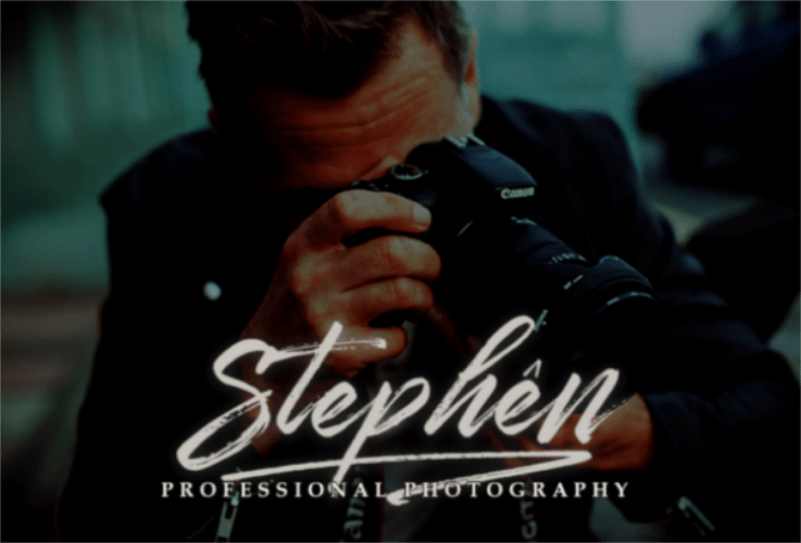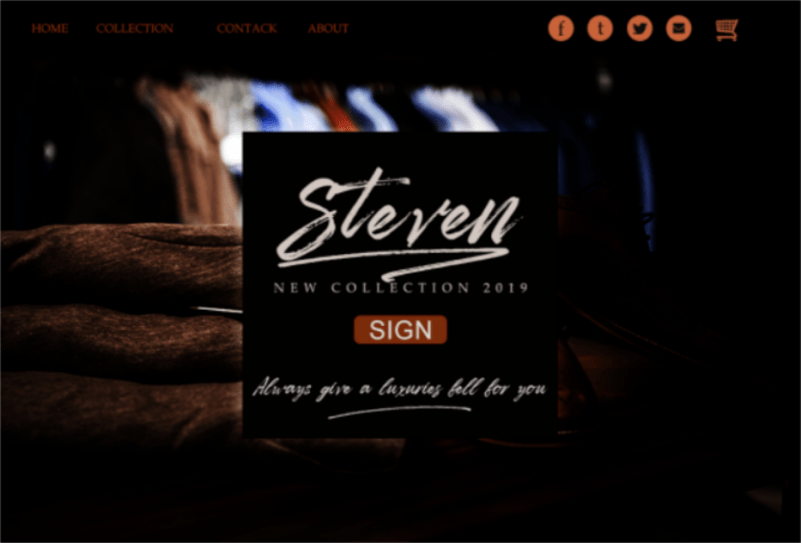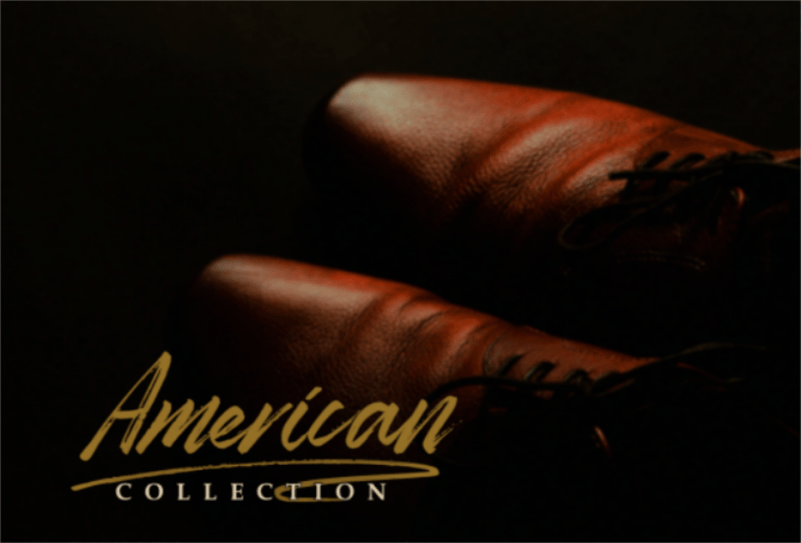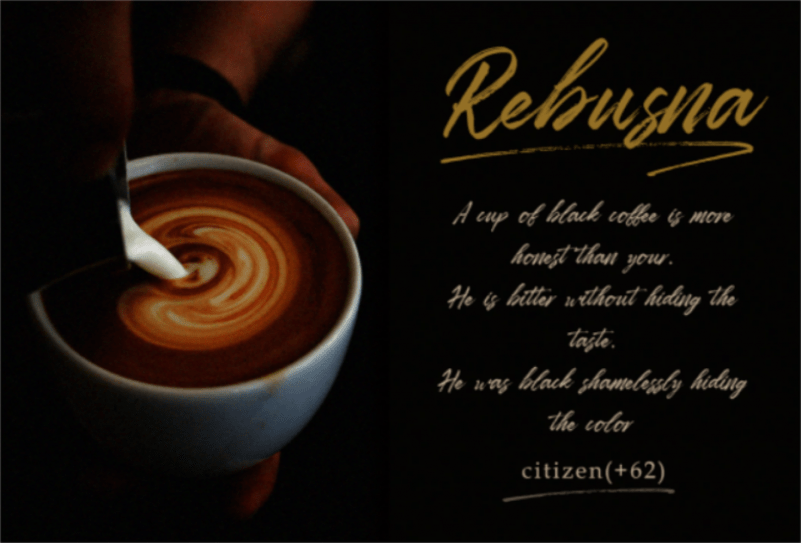
Zombies Hand Brush font
Introducing: Zombies Hand Brush Font! Dapper rustic handwritten font with a personal charm. With quick-drying strokes and distinctive styles, Zombiess is perfect for branding projects, household appliance designs, product packaging – or just as a style text overlay for any background image.